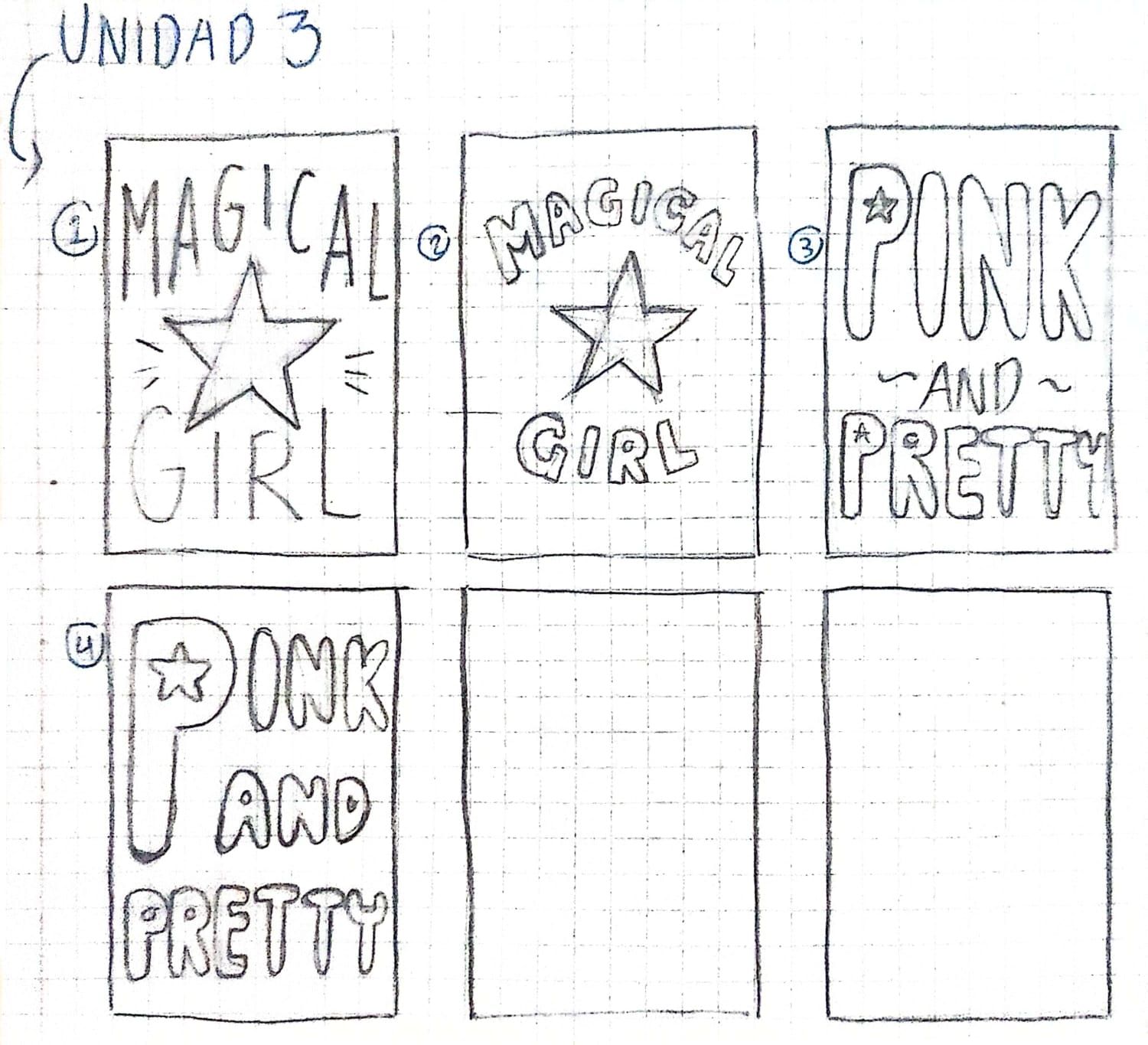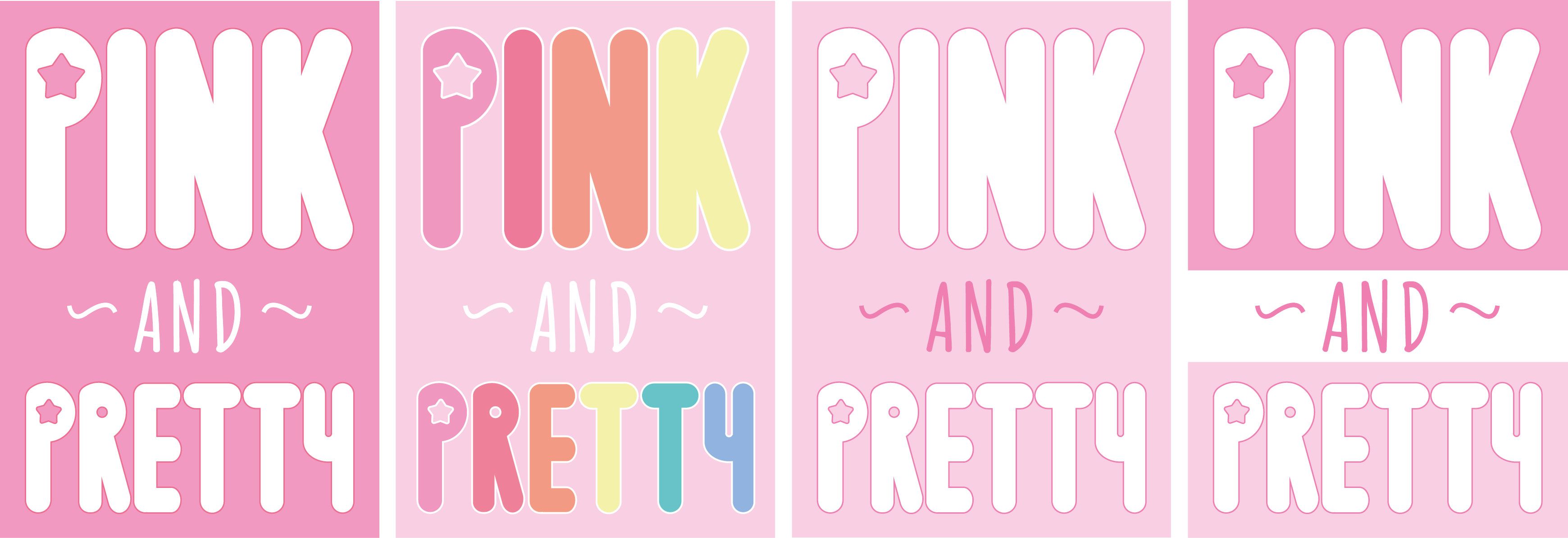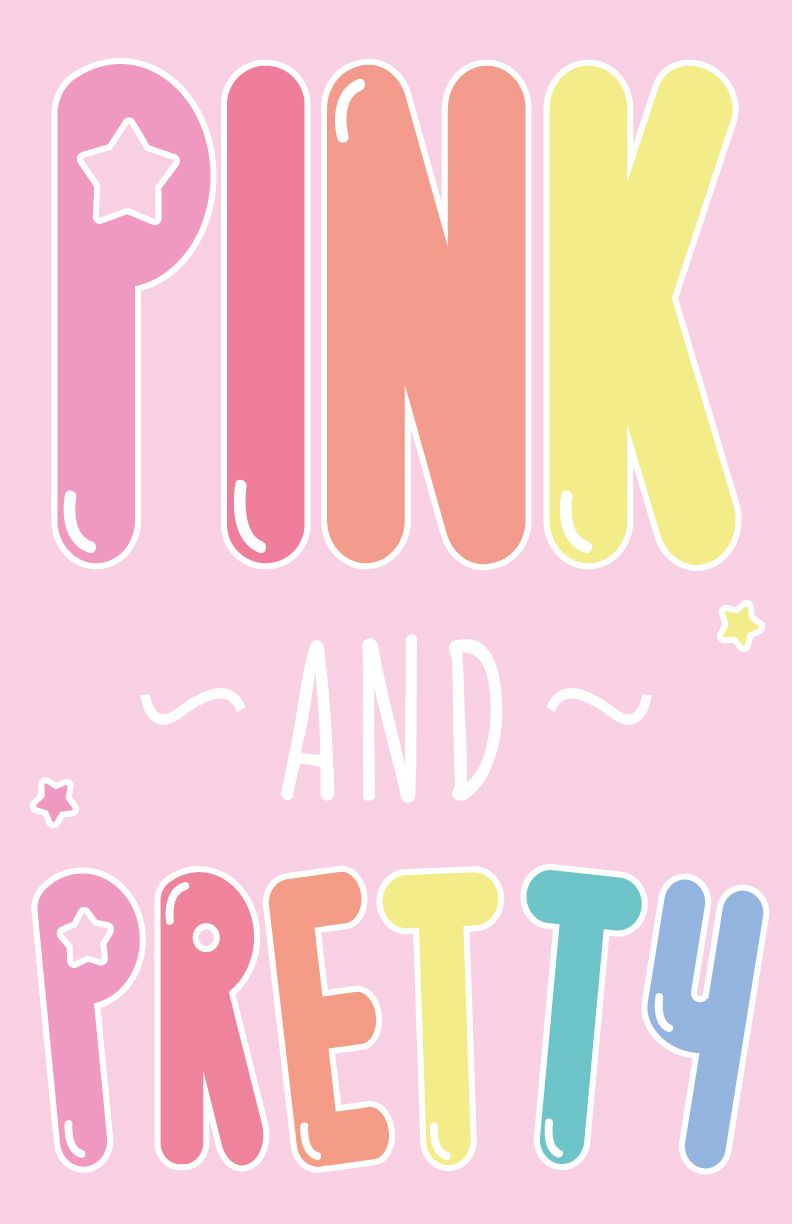
Mi proyecto del curso: Tipografía llamativa y comunicativa en Illustrator
The stars and the color pink reminded me a lot of Steven Universe, in general very good designs